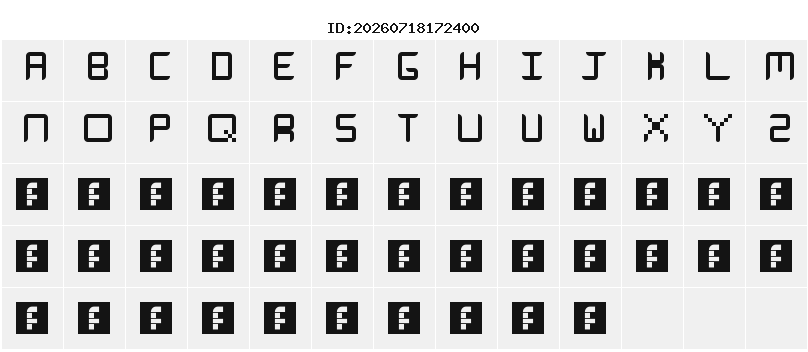
Curved Capitals Preview
• Font Name: Curved Capitals
• Designer: cg011
• Description: ‚ÄúCurved Capitals‚Äù was built with FontStruct
About Curved Capitals.ttf
Curved Capitals.ttf is a modern, elegant sans-serif font designed for ultimate readability and visual harmony. Perfect for branding, headlines, web design, and print materials.